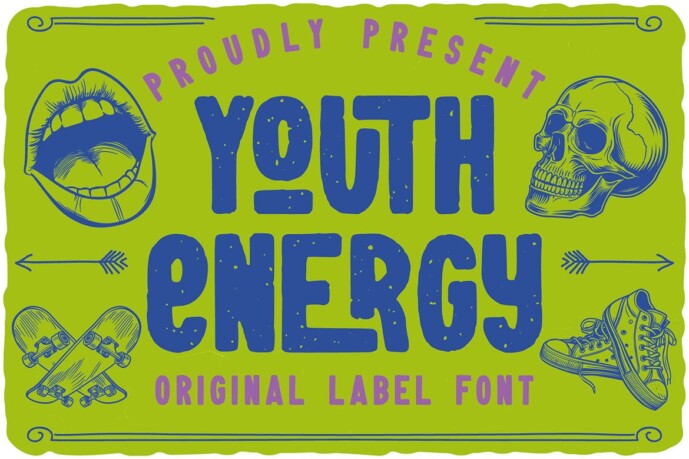
Youth Energy Label Font
Unique, wacky, condensed, urban, ligature, street style, and label sans serif font. Comes with multilingual support, ligatures, and a rough font version, ideal for your new logo, monogram, or branding project.
- 2 font versions: standard and raw
- Multilingual support and ligatures
- Ideal for your new Logo, monogram or branding project